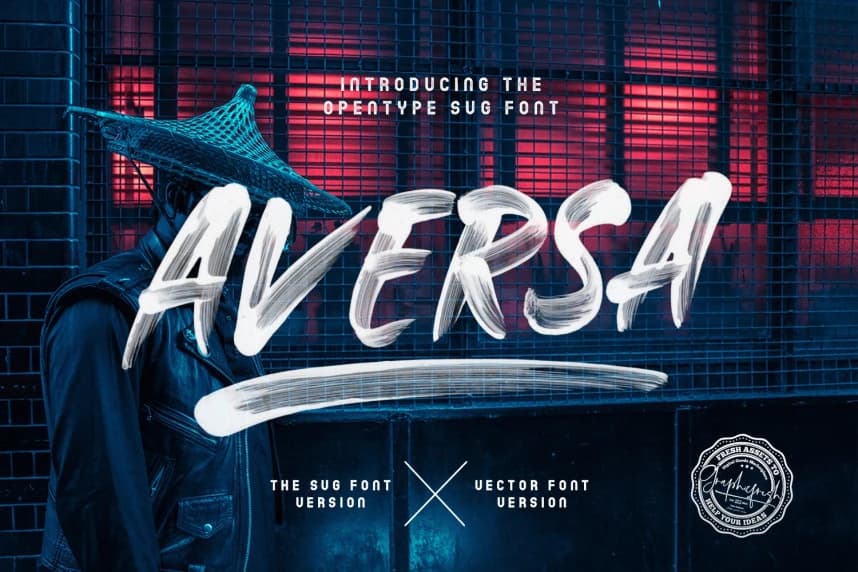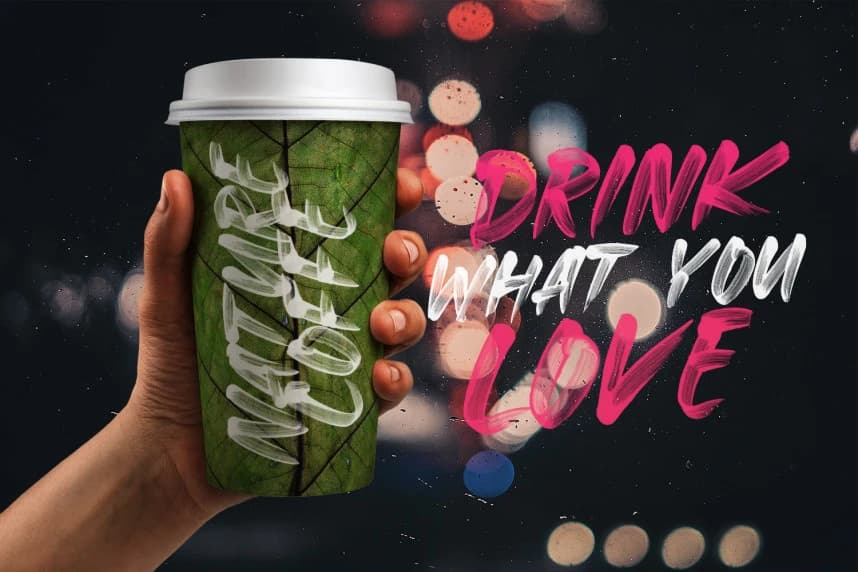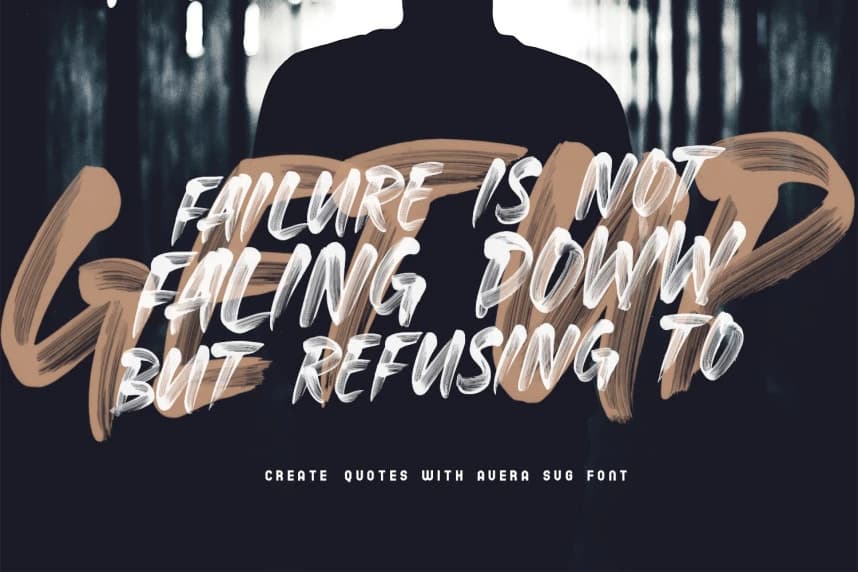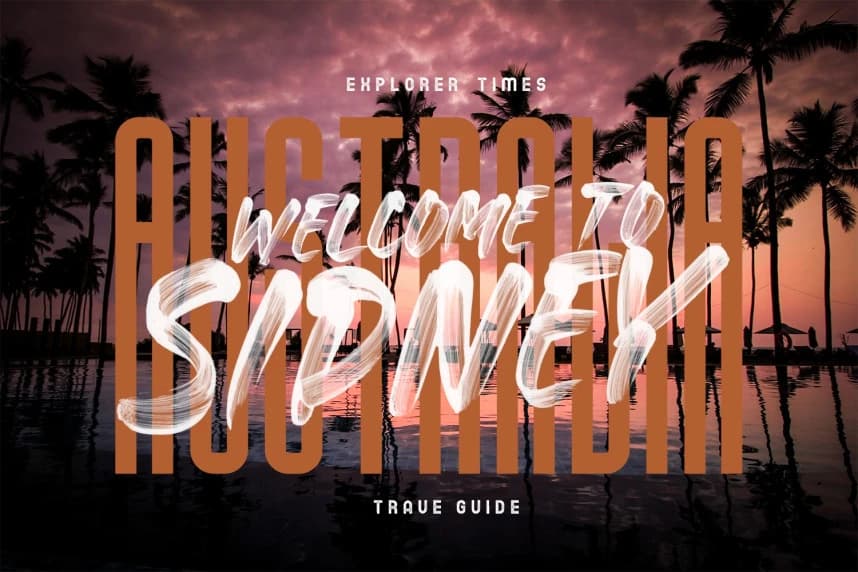
Aversa Vector Font
Aversa Vector Font - This font is made with brush strokes, dipped in paint. Then it was written on a best paper and scanned with high resolution. So that it doesn’t remove the paint element. It will be perfect for posters, packaging, advertisements